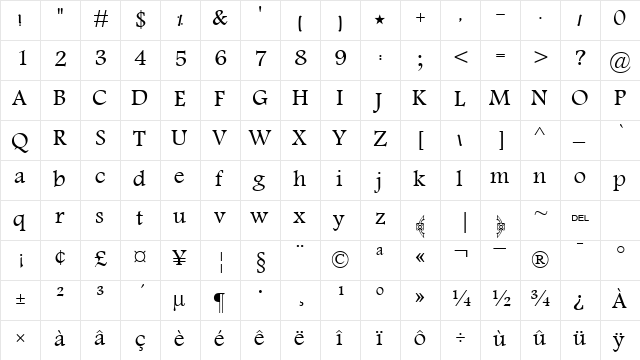
khalaad Hadeel Font Preview
Design Context for khalaad Hadeel Typeface
khalaad Hadeel is a composed and adaptable typeface that performs quietly and consistently across a wide range of design contexts.
Pro Tip: Use khalaad Hadeel in both headline and body roles to test its range before committing to a single application.